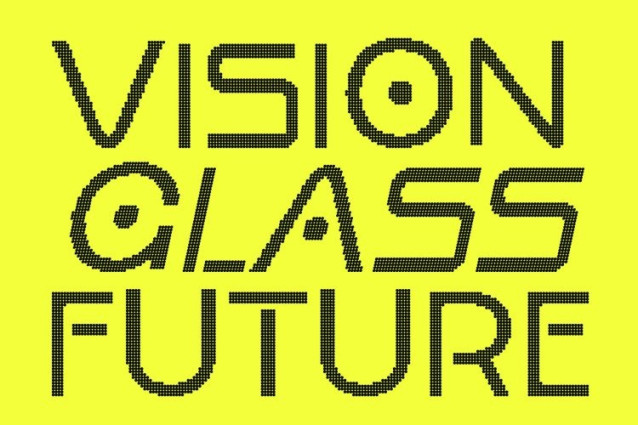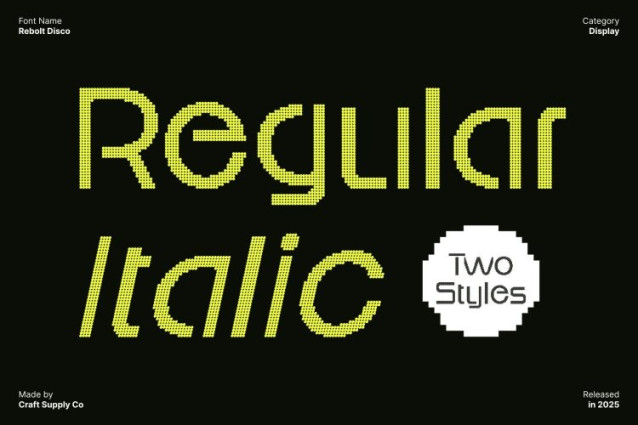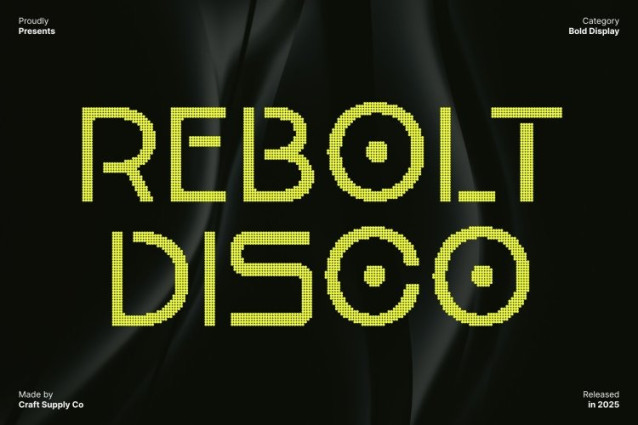
Rebolt Disco Font
Rebolt Disco Font This is a modern sci-fi display font that combines precise techno geometry with sharp, angular edges. Its clean and futuristic forms make it ideal for video game titles, cyber interfaces, movie branding, or any design that needs a high-tech presence.
Disco Shimmer Adds Dynamic Flair
Enhanced with a disco shimmer effect, this font brings sparkle and energy to its geometric structure. The shimmer adds a visually striking, glamorous twist to the futuristic design, making each character pop with movement and style.
Perfect for Modern Branding and Futuristic Projects
This font is ideal for designers aiming to convey innovation and excitement. Use it for futuristic branding, tech-focused design, promotional graphics, or eye-catching headlines, delivering a bold and modern aesthetic with instant impact.
A Versatile Typeface with Techno Glamour
This merges sharp futuristic geometry with a disco-inspired shimmer to create a typeface that is both modern and dynamic. Its sleek and energetic sparkle make it perfect for projects that demand a futuristic, glamorous, and attention-grabbing design.